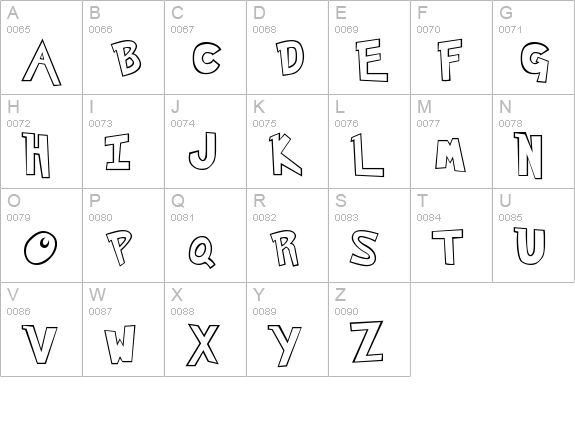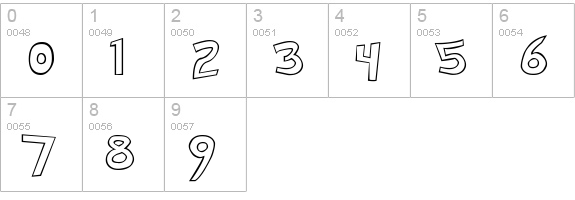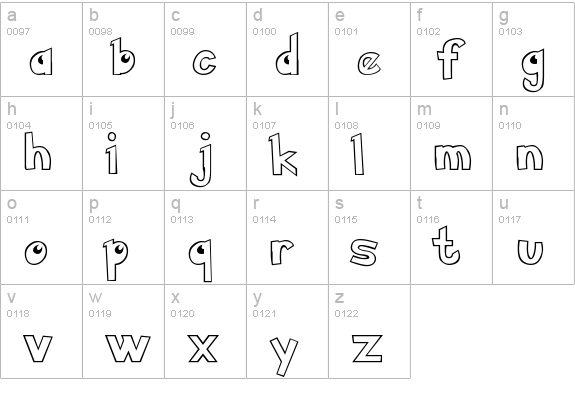
Pokemon Hollow Font Details
Pokemon Hollow font is a whimsical and fun typeface inspired by the popular Pokemon franchise. With its playful and unique design, this font is perfect for capturing the spirit of adventure and imagination. Each letter is carefully crafted to resemble the iconic Pokemon characters, adding a touch of nostalgia to any project. What makes Pokemon Hollow font even more appealing is that it is completely free to download at FontsMarket.com. Whether you are creating a poster, invitation, or any other design project, this font will bring a sense of charm and creativity to your work. Embrace the world of Pokemon with this delightful font and let your creativity soar!